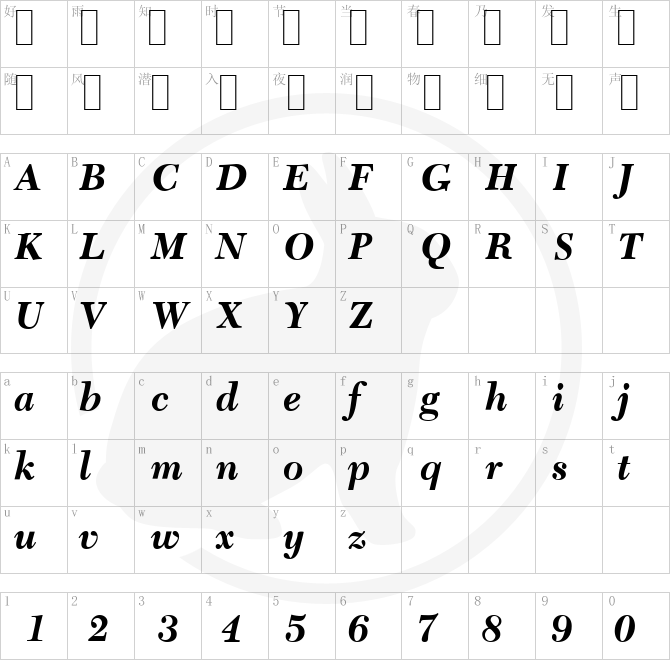
- Font Name:C651-Roman
- Subfamily:SoftMaker Software GmbH C651-Roman-BoldItalic
C651-Roman-BoldItalic.ttf is a very beautiful artistic font, C651-Roman-BoldItalic.ttf is widely used in the design and printing of various books and pictures,C651-Roman-BoldItalic.ttf has a strong visual impact,C651-Roman-BoldItalic.ttf is a commonly used font in newspapers, magazines and books, and is used in posters, e-commerce Poster design, store design, logo design, font design and other fields.C651-Roman-BoldItalic.